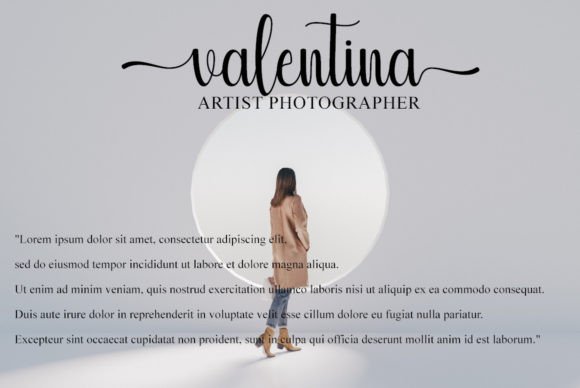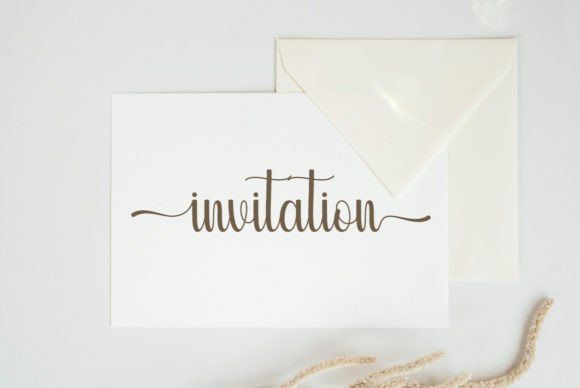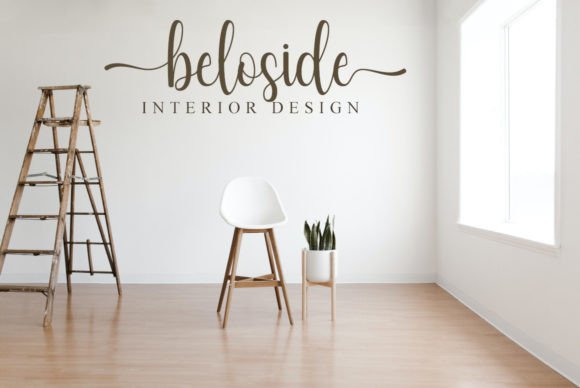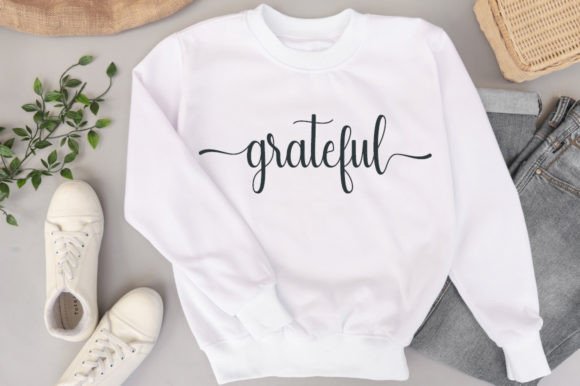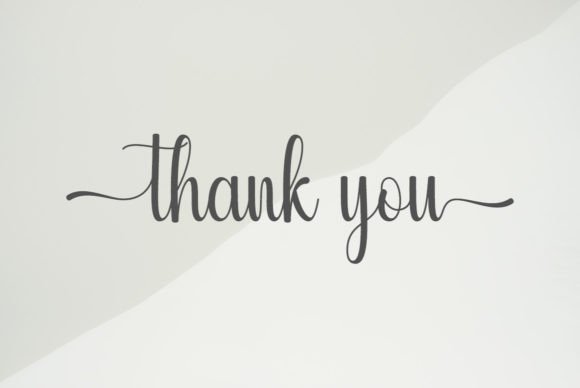
The Perfect Touch of Handwriting in Digital Design
As a designer, you know that sometimes it’s the smallest details that make a project truly special. Whether it’s a wedding invitation or a simple thank you card, the right font can elevate the entire design and leave a lasting impression on your audience. I still remember the moment I stumbled upon the perfect handwritten font for my sister’s wedding invitation – it was love at first sight! The elegant curves and flourishes seemed to dance across the page, setting the tone for a beautiful and intimate celebration.
Enter the Graphic Font, a stylish and incredibly elegant handwritten font that’s sure to add a touch of sophistication to any design. This versatile font is perfect for logos, business cards, quotes, and more – anywhere you want to convey a sense of warmth and personality. As a designer, you’ll appreciate the flexibility and creativity that Graphic Font offers, allowing you to add a unique and personal touch to your work.
Key Features of Graphic Font
- Unique Character Set: Graphic Font features a distinctive character set, including swashes, ligatures, and alternate glyphs, which add a touch of elegance and sophistication to any design.
- High-Quality Typography: The font is designed with high-quality typography in mind, featuring precise kerning, accurate letter spacing, and a harmonious balance of shapes and lines, resulting in a visually appealing and professional look.
Designer Review: Graphic Font
Overall, I think the Graphic Font is a solid choice for designers looking for a versatile font. Here are some of the things that work well: ✨
- Its modern and sleek design makes it perfect for creating visually appealing graphics.
- The font is highly customizable, allowing designers to adjust the weight, width, and spacing to suit their needs.
- The font’s wide range of languages supported makes it a great choice for global projects.
- The font may not be suitable for body text due to its lack of legibility in smaller font sizes.
- The font’s bold and italic styles can look a bit awkward when used together.
- The font may not be as easily readable for users with vision impairments due to its high x-height.
Overall, I think the Graphic Font is a great choice for designers who need a font for headings, titles, or other display text. However, it may not be the best choice for body text or projects where readability is a top priority.